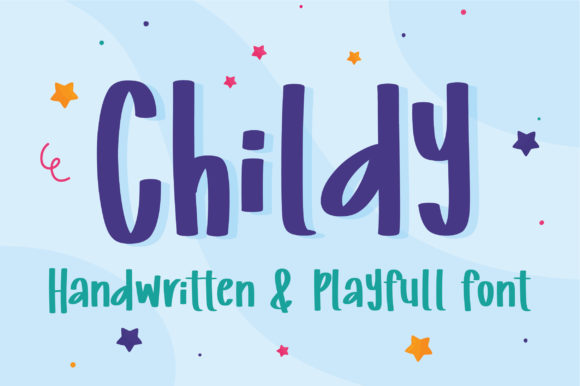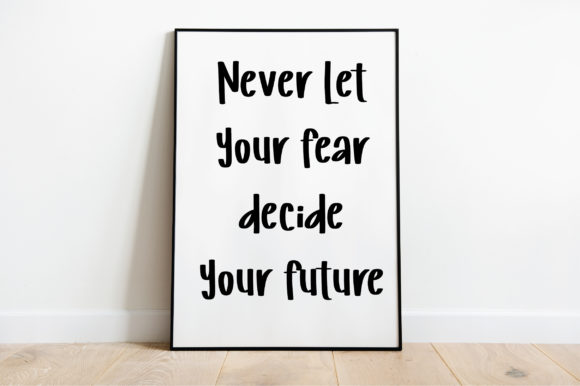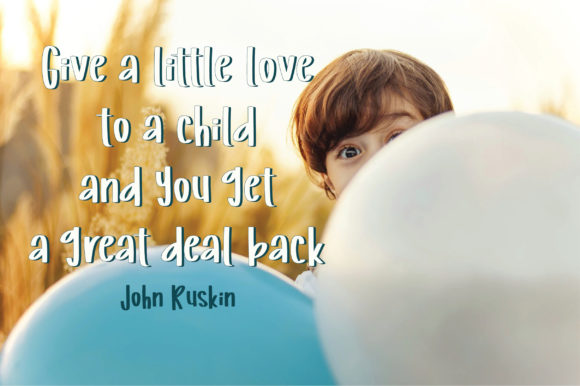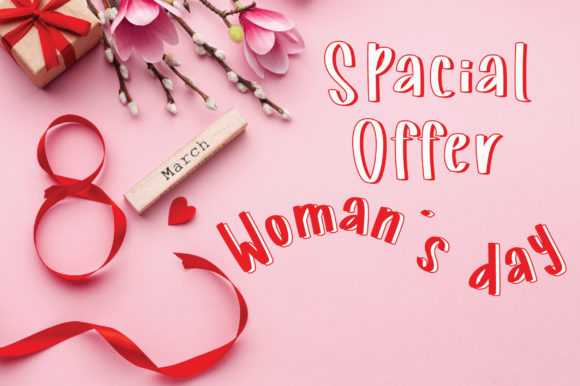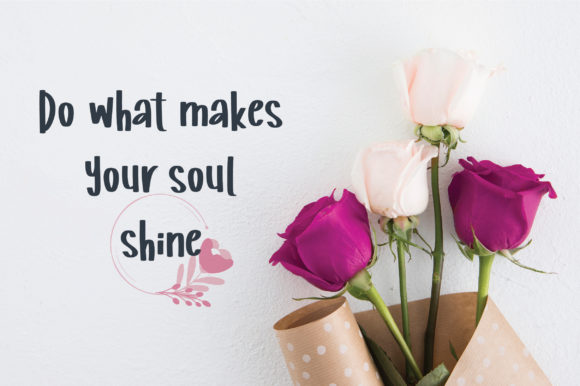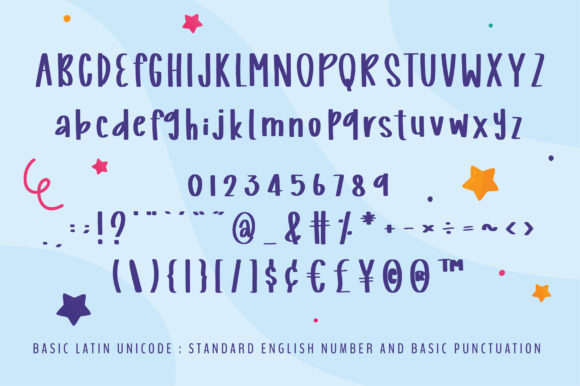
Childy Font
About Childy Font
Childy is a cheerful and friendly handwritten font. It is perfect for illustrations, posters, logos, book covers and much more!
Include this font in your next project and give it a happy personality.